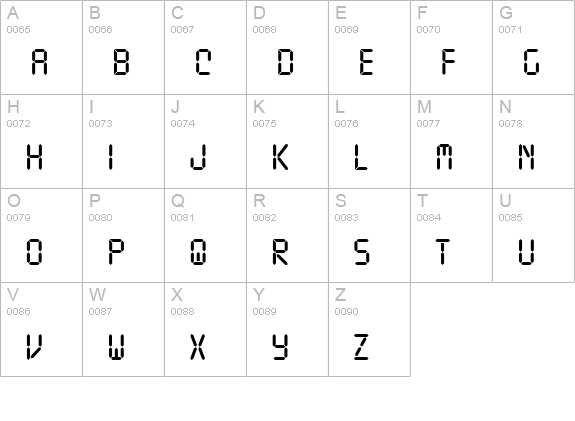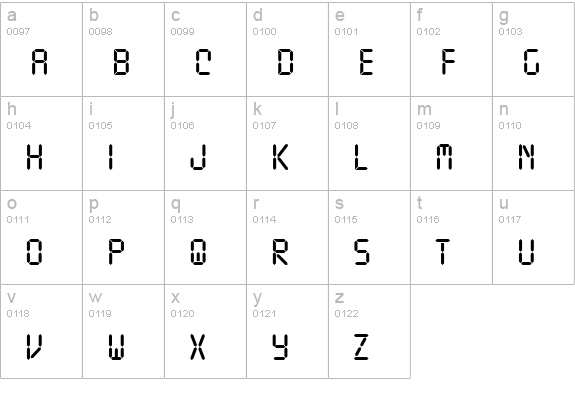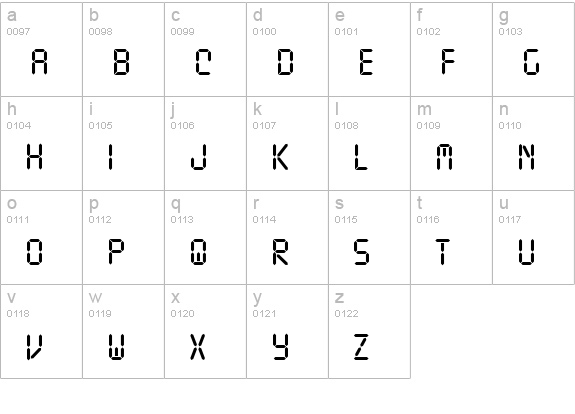
Ticking Timebomb BB Font Details
Introducing Ticking Timebomb BB font, a captivating typographic creation that will ignite your designs with explosive energy. This unique font exudes a sense of urgency, capturing the essence of a ticking timebomb ready to detonate. With its bold and dynamic letterforms, Ticking Timebomb BB font demands attention and leaves a lasting impression. Every character in this font is meticulously crafted, showcasing a perfect balance between sleek lines and edgy curves. The sharp angles and precise details give Ticking Timebomb BB font a modern and futuristic feel, making it perfect for projects that require a touch of intensity. Whether you're creating a poster for an action-packed event, designing a thrilling book cover, or crafting an attention-grabbing logo, Ticking Timebomb BB font is the ultimate choice for adding a sense of urgency and drama to your designs. The best part? Ticking Timebomb BB font is available entirely free for personal and commercial use. You can freely download this explosive font at FontsMarket.com, where it is conveniently accessible for all your design needs. So go ahead and download Ticking Timebomb BB font today, and watch your designs ignite with explosive creativity!